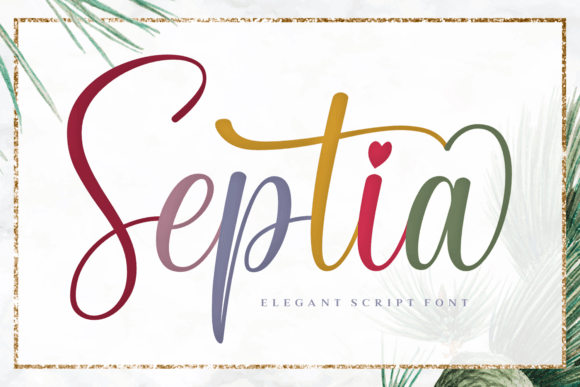
Introducing Septia, the enchanting script font that exudes elegance and grace. Immerse yourself in the beauty of this thin and delicate font, meticulously crafted to elevate your creative designs to new heights.
With Septia, the possibilities are endless. Whether you're designing captivating logos, heartfelt invitations, ethereal wedding designs, or heartfelt greeting cards, Septia's charm is sure to leave a lasting impression. Its delicate curves and flowing lines will add a touch of sophistication and refinement to any project.
Septia's versatility extends beyond its aesthetic appeal. Its PUA encoding grants you effortless access to a comprehensive range of glyphs and swashes, allowing you to unleash your creativity and explore limitless design possibilities.
Unleash the power of Septia and let your imagination soar. Transform your designs into breathtaking works of art that capture hearts and leave a lasting impression. Experience the magic of Septia today and elevate your creative journey to new heights.